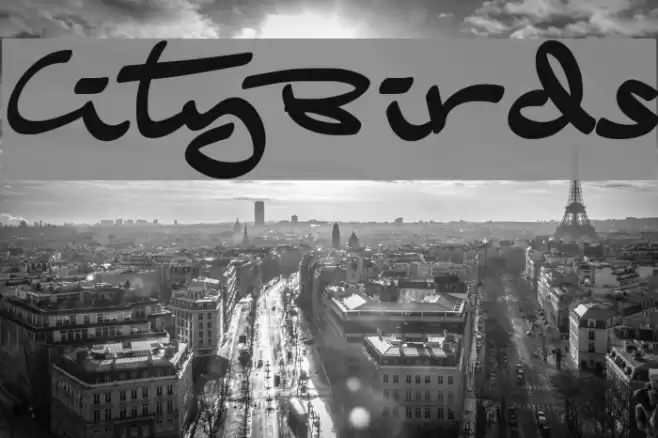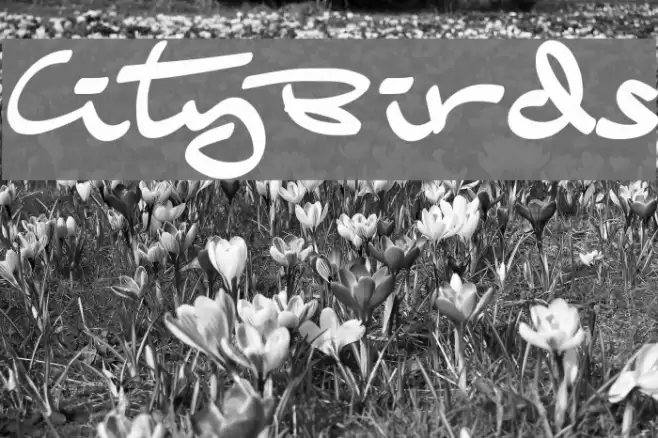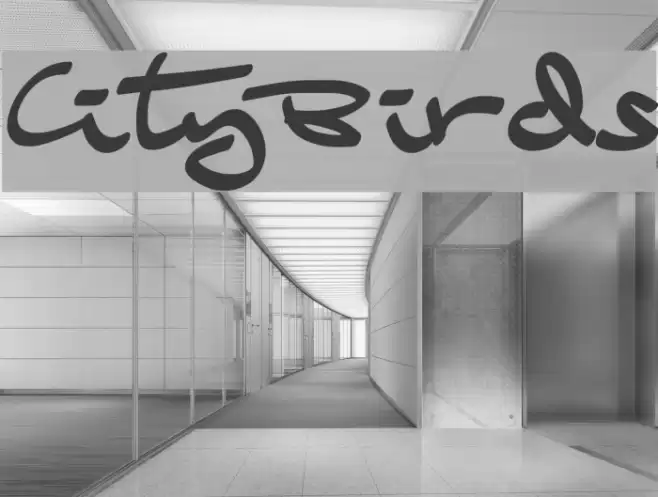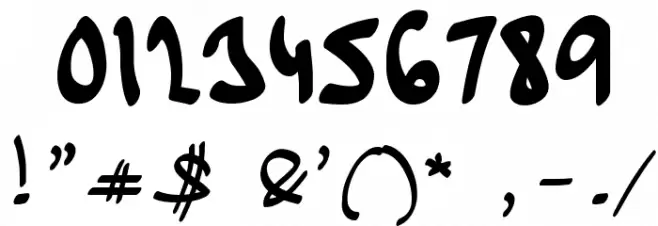
CityBirds Font
CityBirds Description
This font features a playful and dynamic handwritten style, characterized by its fluid and organic strokes. The uppercase letters exhibit a sense of movement and energy, with varying stroke widths that add a lively touch. The lowercase letters maintain this energetic feel, with some characters featuring unique loops and curves that enhance the font's whimsical nature. The numerals are bold and rounded, complementing the overall style. Special characters are creatively designed, maintaining consistency with the font's playful theme.
A playful, dynamic handwritten font with fluid strokes and lively character from Uncategorized fonts.
- Proposed Projects: Ideal for creative projects such as children's book covers, playful branding, greeting cards, and artistic posters.
- Overall Style: Playful, Artistic
- Use Case: Logos, Posters, Creative projects